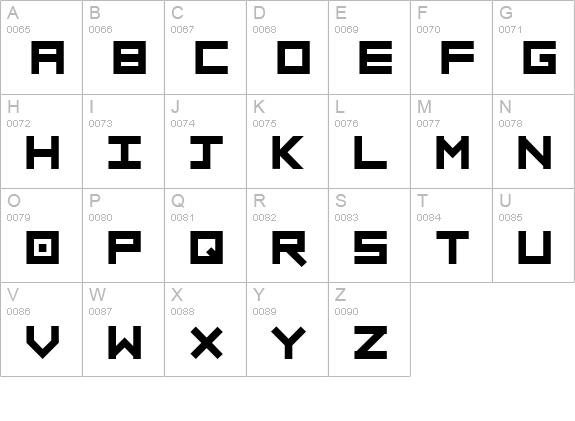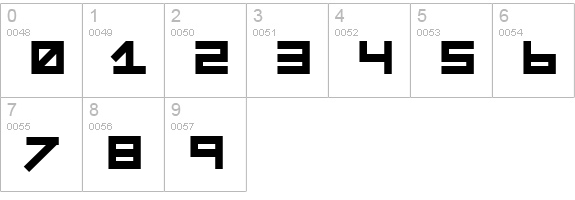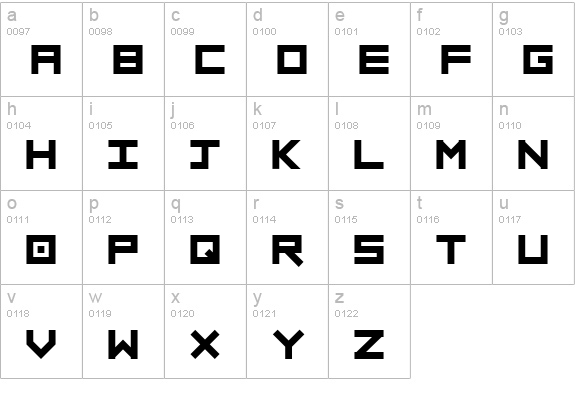
sinner Font Details
Introducing Sinner Font, a bold and captivating typeface designed for those who dare to embrace their rebellious side. With its edgy and distinctive letterforms, this font is perfect for creating eye-catching designs that demand attention. Sinner Font is not just your average font; it is a statement. It embodies a sense of defiance, a refusal to conform to the ordinary. Its sharp angles and bold strokes exude confidence and power, making it ideal for projects that need to make a lasting impression. But here's the best part – Sinner Font is completely free! That's right, you can now download this remarkable typeface without spending a dime. Thanks to FontsMarket.com, you can easily access this font and unleash its rebellious energy in your designs. Whether you're working on a poster, logo, branding, or any other creative project, Sinner Font will inject a touch of boldness and uniqueness. Its versatility allows it to adapt to various themes and styles, giving you endless possibilities to experiment and create something truly exceptional. So why wait? Embrace your inner sinner and let your designs speak volumes with Sinner Font. Download it for free at FontsMarket.com and start making a statement today.